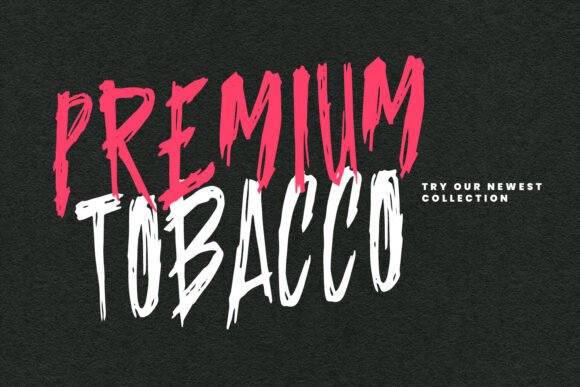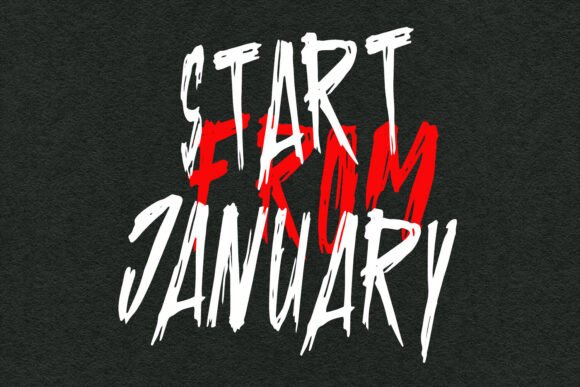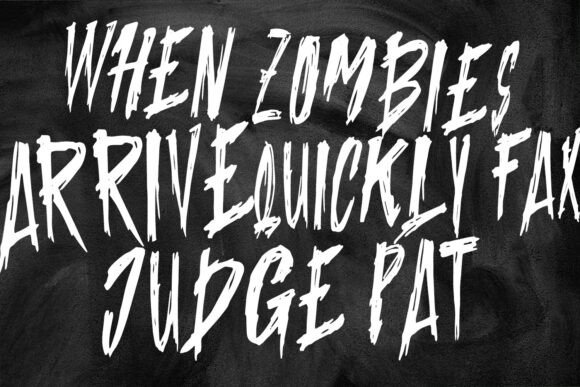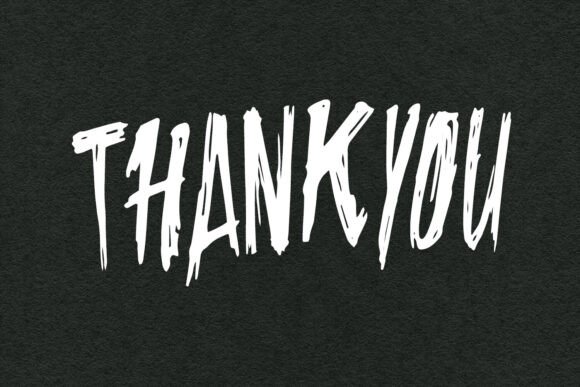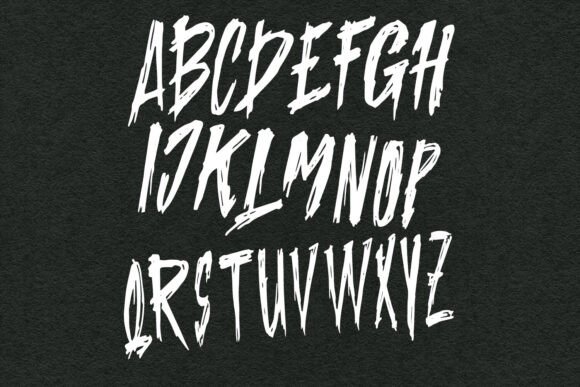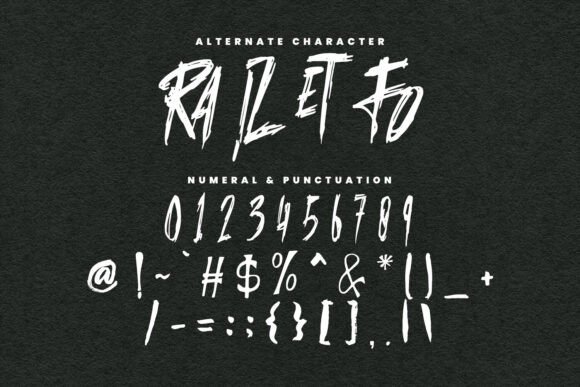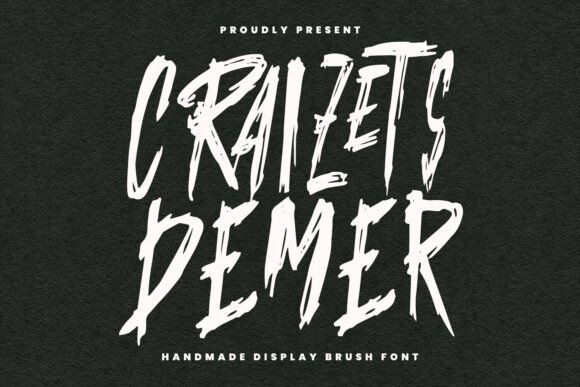
Unleash Boldness with Craizets Demer Font: The Ultimate Display Brush Font
Are you tired of using the same old fonts for your designs? Do you want to add a touch of raw energy and a daring edge to your projects? Look no further than Craizets Demer Font, a handmade display brush font that’s perfect for creatives looking to make a fierce impression. In this article, we’ll dive into the world of Craizets Demer Font and explore its unique features, uses, and benefits.
What is Craizets Demer Font?
Craizets Demer Font is a bold, handmade display brush font that’s designed to make a statement. Its rugged strokes and dynamic presence make it ideal for impactful designs that require a touch of edginess. Whether you’re working on an album cover, event poster, logo, or urban-themed project, Craizets Demer Font is the perfect choice.
Key Features of Craizets Demer Font
• Handmade with love: Craizets Demer Font is crafted with precision and care, giving it a unique, organic feel that’s hard to replicate with digital fonts.
• Bold and daring: This font is not for the faint of heart. Craizets Demer Font is designed to make a statement, with bold strokes and a confident presence that’s sure to turn heads.
• Versatile: While Craizets Demer Font is perfect for display designs, it’s also versatile enough to be used for a variety of projects, from logos to posters and more.
• Easy to use: Despite its bold and edgy look, Craizets Demer Font is surprisingly easy to use, even for those who are new to design.
Uses for Craizets Demer Font
So, what can you use Craizets Demer Font for? The possibilities are endless, but here are a few ideas to get you started:
• Album covers: Add a touch of edginess to your music designs with Craizets Demer Font. Its bold strokes and dynamic presence make it perfect for rock, pop, and hip-hop album covers.
• Event posters: Create eye-catching event posters that demand attention with Craizets Demer Font. Its rugged, handmade feel is perfect for concerts, festivals, and other high-energy events.
• Logos: Use Craizets Demer Font to create bold, memorable logos that make a statement. Its unique feel and edgy vibe make it perfect for brands that want to stand out.
• Urban-themed projects: Craizets Demer Font is perfect for urban-themed projects, such as streetwear designs, graffiti-inspired art, and more.
Benefits of Using Craizets Demer Font
So, why should you choose Craizets Demer Font for your designs? Here are just a few benefits:
• Adds edge and energy: Craizets Demer Font adds a touch of raw energy and edginess to your designs, making them more engaging and attention-grabbing.
• Unique and memorable: With its handmade, organic feel, Craizets Demer Font is sure to make your designs stand out and be remembered.
• Easy to use: Despite its bold and edgy look, Craizets Demer Font is surprisingly easy to use, even for those who are new to design.
• Versatile: Craizets Demer Font can be used for a variety of projects, from display designs to logos and more.
In conclusion, Craizets Demer Font is a powerful, handmade display brush font that’s perfect for creatives looking to add a touch of raw energy and edginess to their designs. With its bold strokes, dynamic presence, and rugged feel, it’s ideal for impactful designs such as album covers, event posters, logos, and urban-themed projects. So why settle for boring, generic fonts when you can unleash boldness with Craizets Demer Font?
Whether you’re a seasoned designer or just starting out, Craizets Demer Font is a must-have in your font collection. So go ahead, take the leap, and experience the power of Craizets Demer Font for yourself.